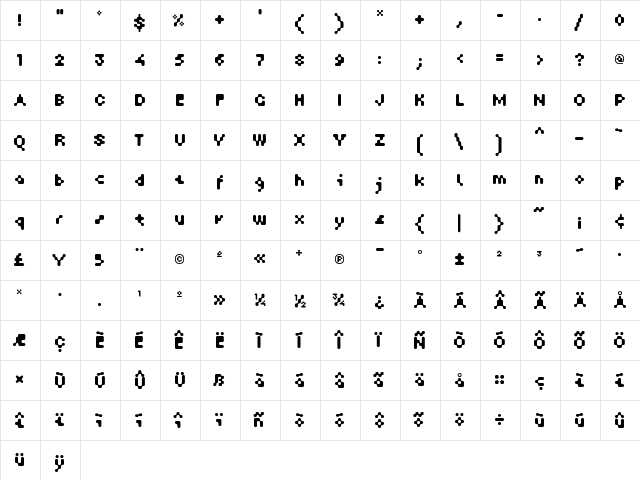
MoonbaseAlpha Regular
Design Context for MoonbaseAlpha Typeface
MoonbaseAlpha takes a measured approach to typography — its balanced proportions and neutral character make it a reliable workhorse for both digital and print work.
Pro Tip: Pair MoonbaseAlpha with a font of contrasting weight or personality to build a more expressive typographic hierarchy.